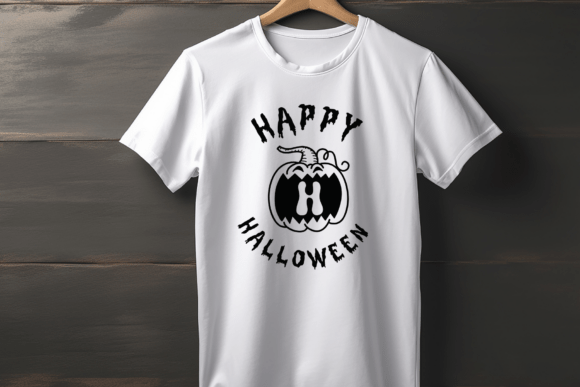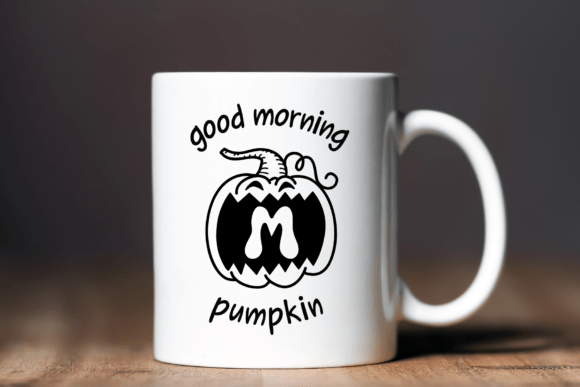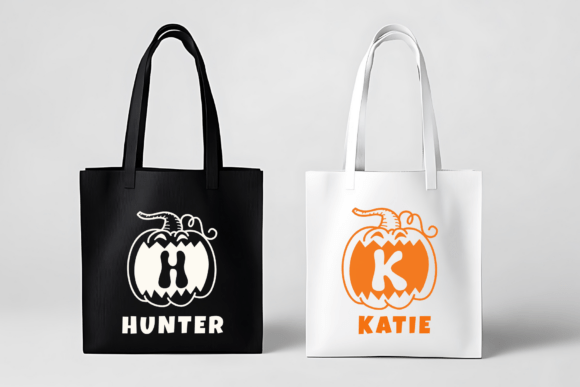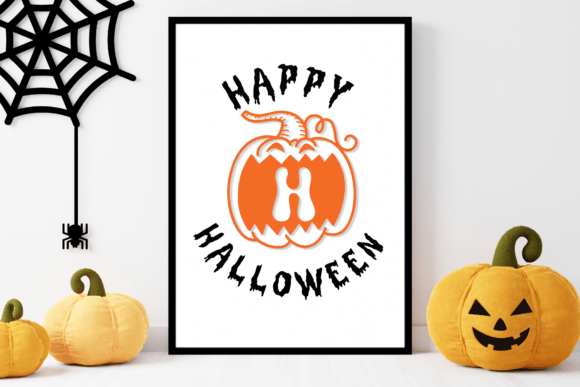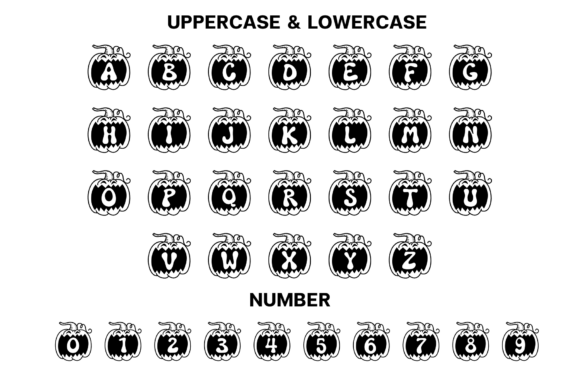
Introduction to Pumpkin Happy Font
As a designer, you know the feeling of hitting a creative roadblock. You’re staring at a blank screen, and your imagination is as dry as a jack-o-lantern without a candle. But then, something sparks. You start brainstorming, and the ideas begin to flow. For many designers, the solution to this creative conundrum lies in the right design resource. That’s where the Pumpkin Happy Font comes in – a delightful, hand-carved typeface that’s perfect for adding a festive touch to your Halloween-themed projects.
Whether you’re working on a digital design or a print project, the Pumpkin Happy Font is an invaluable asset. Its transparent background and high-quality design make it easy to incorporate into your creative project. Plus, it’s a free download, making it accessible to designers of all levels. With the Pumpkin Happy Font, you’ll be able to create eye-catching posters, invitations, and party decorations that are sure to impress.
Key Features of Pumpkin Happy Font
- Unique, playful design ideal for creative projects and design resources.
- Comes with a transparent background, making it easy to overlay on any image or design.
- Includes a range of weights and styles, perfect for adding depth and visual interest to your design.
- Designed to be versatile and suitable for a variety of design applications, from digital to print media.
Honest Review: Pumpkin Happy Font
Here are some things that work well with the Pumpkin Happy Font: ✨ High quality, vibrant characters that are sure to add some excitement to your designs. The font is also fully editable, making it easy to customize to your needs. Additionally, the transparent background makes it easy to layer over other design elements.
- ✨ Great for creative projects, such as social media graphics, posters, and brochures
- ✨ Fully editable characters
- ✨ Transparent background for easy layering
One limitation of the Pumpkin Happy Font is that it may not be suitable for formal or professional designs. The font’s playful, whimsical style may not be the best fit for corporate or business projects.
Overall, I was impressed with the Pumpkin Happy Font. It’s a great resource for designers looking for a fun, high-quality font for their creative projects. Just be aware of its limitations, and you’ll be all set for a successful design.
Pumpkin Happy Font
The Pumpkin Happy Font is a free design resource ideal for any creative project that requires a playful and festive touch. This high-quality font features a transparent background, making it easy to use in various design applications.
For the most out of the Pumpkin Happy Font, try combining it with bold colors and playful graphics. You can also use it to create custom invitations, party decorations, and other festive materials.
The Pumpkin Happy Font is perfect for:
- Thanksgiving and Halloween decorations
- Party invitations and decorations
- Food and drink labels
- Seasonal social media graphics
Alternatives to Pumpkin Happy Font
Great Vibes Font is a high-quality, hand-drawn script font ideal for creative projects that require a touch of elegance and sophistication. It’s perfect for wedding invitations, branding, and other design resources where a unique, handwritten feel is desired.
Compared to Pumpkin Happy Font, Great Vibes Font has a more refined and polished look, making it suitable for a wider range of design applications.
Alex Brush Font is a beautiful, calligraphic script font that’s perfect for design projects requiring a touch of sophistication and refinement. It’s ideal for use on a transparent background or as a overlay, adding a delicate, handwritten feel to any design resource.
Unlike Pumpkin Happy Font, Alex Brush Font has a more subtle and understated look, making it suitable for projects where a more restrained approach is desired.
Q: Is the Pumpkin Happy Font a high-quality font?
Yes, the Pumpkin Happy Font is a high-quality design resource that has been carefully crafted to ensure it looks great in a variety of contexts. With its clean lines, crisp typography, and attention to detail, it’s perfect for use in creative projects where you want to make a lasting impression.